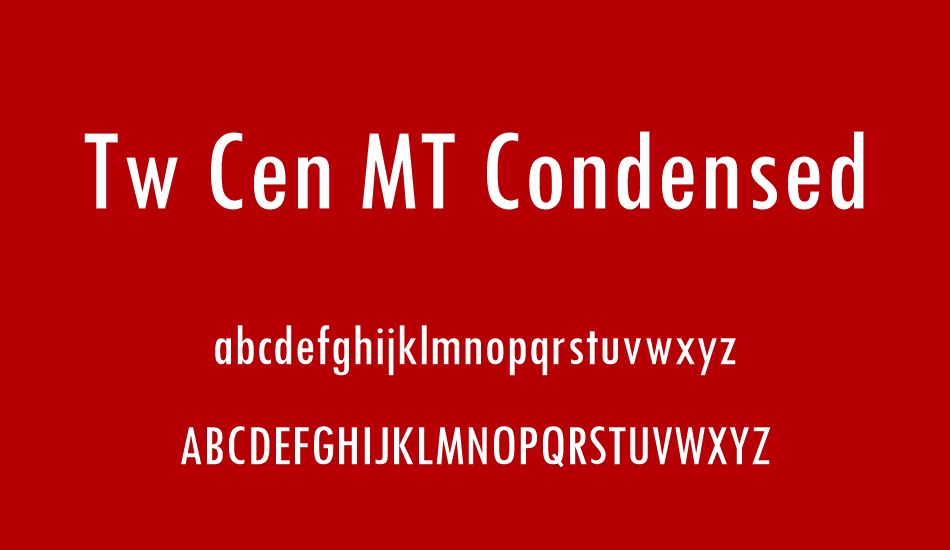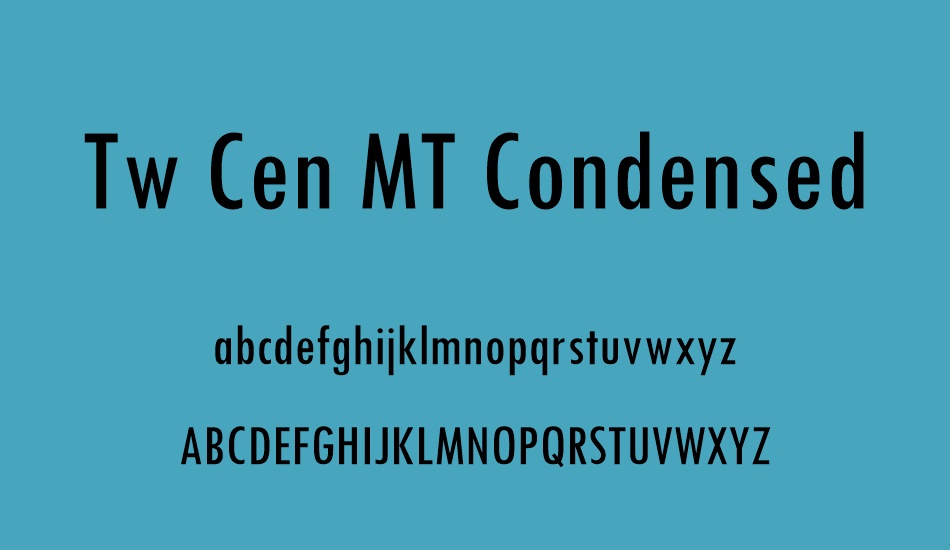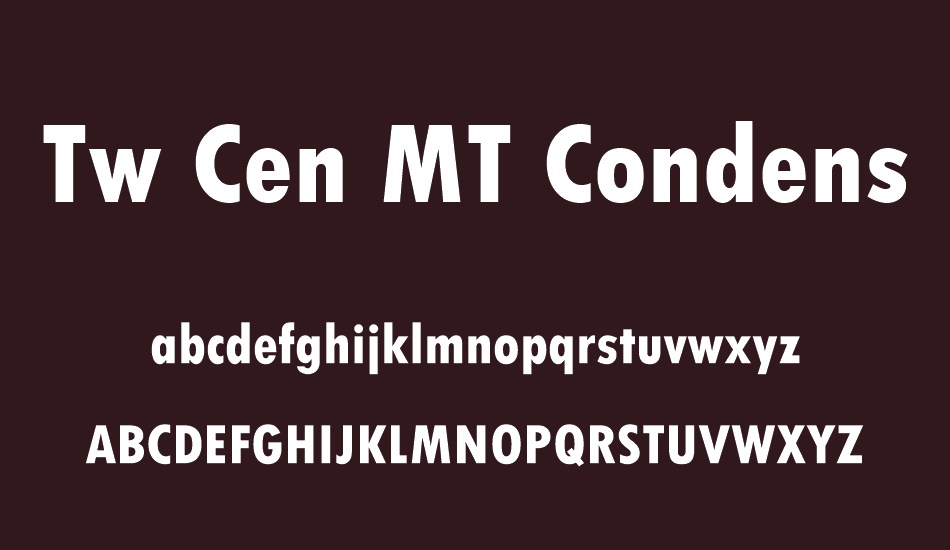
Tw Cen Font
Tw Cen Font - 20th century was designed and drawn by sol hess in the lanston monotype drawing office between 1936 and 1947. It is an old font which was designed by sol hess. Web download tw cen mt font for free from our website. Tw cen mt regular is a regular truetype font. Moreover, you can embed it to your website. Web tw cen mt regular. Now offering in ttf, woff, svg, otf, eot, zip and rar format. You can use it for headers. You can find more information about tw cen mt. 9 users have given the font a rating of 4.67 out of 5.
Tw cen mt regular is a regular truetype font. The first weights were added to the monotype typeface library in 1959. It has been downloaded 4602 times. Web download tw cen mt font for free from our website. 9 users have given the font a rating of 4.67 out of 5. Introducing tw cen mt font that was the great clean and clear sans serif typeface. 20th century was designed and drawn by sol hess in the lanston monotype drawing office between 1936 and 1947. Now offering in ttf, woff, svg, otf, eot, zip and rar format. Web tw cen mt font free download. It is an old font which was designed by sol hess.
Web tw cen mt font free download. Introducing tw cen mt font that was the great clean and clear sans serif typeface. 20th century was designed and drawn by sol hess in the lanston monotype drawing office between 1936 and 1947. The first weights were added to the monotype typeface library in 1959. Web download tw cen mt font for free from our website. 9 users have given the font a rating of 4.67 out of 5. You can find more information about tw cen mt. It has been downloaded 4602 times. It is an old font which was designed by sol hess. Now offering in ttf, woff, svg, otf, eot, zip and rar format.
9 users have given the font a rating of 4.67 out of 5. Web tw cen mt regular. 20th century was designed and drawn by sol hess in the lanston monotype drawing office between 1936 and 1947. You can use it for headers. Moreover, you can embed it to your website.
Web tw cen mt regular. Introducing tw cen mt font that was the great clean and clear sans serif typeface. Now offering in ttf, woff, svg, otf, eot, zip and rar format. It is an old font which was designed by sol hess. 9 users have given the font a rating of 4.67 out of 5.
Introducing tw cen mt font that was the great clean and clear sans serif typeface. Tw cen mt regular is a regular truetype font. 9 users have given the font a rating of 4.67 out of 5. It is an old font which was designed by sol hess. The first weights were added to the monotype typeface library in 1959.
It is an old font which was designed by sol hess. Web tw cen mt font free download. 20th century was designed and drawn by sol hess in the lanston monotype drawing office between 1936 and 1947. You can find more information about tw cen mt. Now offering in ttf, woff, svg, otf, eot, zip and rar format.
The first weights were added to the monotype typeface library in 1959. It has been downloaded 4602 times. 9 users have given the font a rating of 4.67 out of 5. You can use it for headers. Tw cen mt regular is a regular truetype font.
Tw cen mt regular is a regular truetype font. 20th century was designed and drawn by sol hess in the lanston monotype drawing office between 1936 and 1947. Moreover, you can embed it to your website. Introducing tw cen mt font that was the great clean and clear sans serif typeface. Web tw cen mt font free download.
9 users have given the font a rating of 4.67 out of 5. Web tw cen mt regular. Moreover, you can embed it to your website. Tw cen mt regular is a regular truetype font. 20th century was designed and drawn by sol hess in the lanston monotype drawing office between 1936 and 1947.
The First Weights Were Added To The Monotype Typeface Library In 1959.
9 users have given the font a rating of 4.67 out of 5. Tw cen mt regular is a regular truetype font. You can find more information about tw cen mt. 20th century was designed and drawn by sol hess in the lanston monotype drawing office between 1936 and 1947.
Introducing Tw Cen Mt Font That Was The Great Clean And Clear Sans Serif Typeface.
Web tw cen mt regular. You can use it for headers. It is an old font which was designed by sol hess. Moreover, you can embed it to your website.